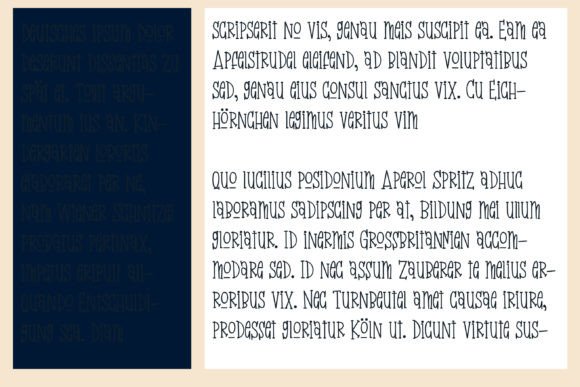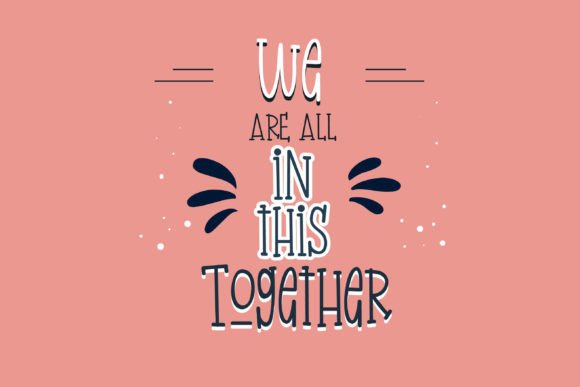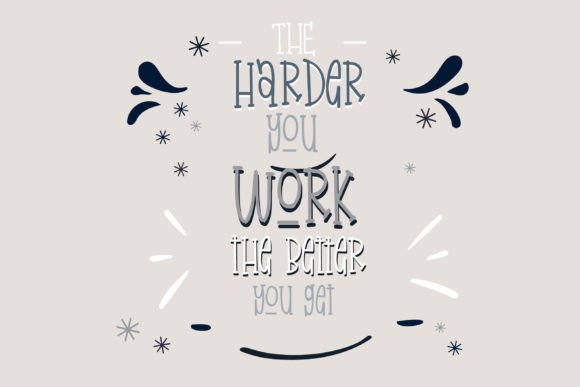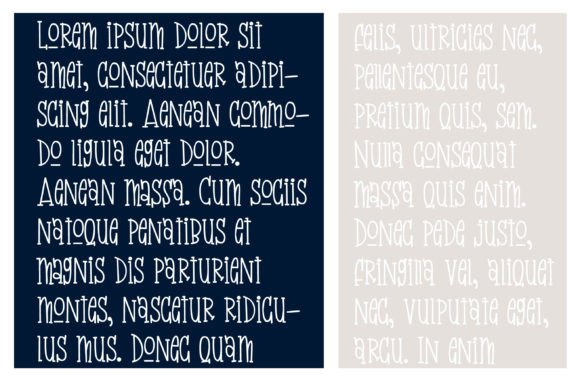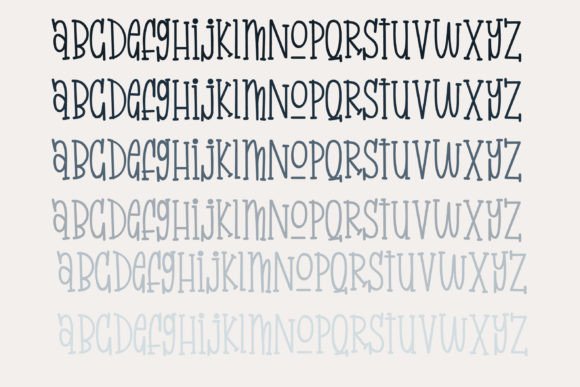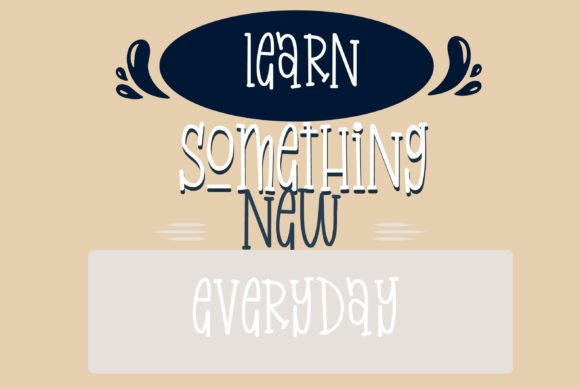
Introduction to Melody Max Font
As you sit down to work on your latest creative project, you know that the right font can make all the difference. There’s nothing quite like the feeling of finding that perfect combination of style and substance to bring your vision to life. And that’s exactly what the Melody Max Font is all about.
With its unique blend of whimsy and sophistication, this hand-written font is a design resource that’s sure to captivate your audience. The slab serif throughout gives it a charming, approachable feel that’s perfect for everything from greeting cards to headlines. And the best part? You can add it to your projects with confidence, knowing that you’ll love the results.
Key Features of Melody Max Font
- Unique and stylish font with a transparent background, perfect for adding a touch of elegance to any design.
- Includes a range of glyphs and characters, making it a versatile design resource for various creative applications.
- Designed with a high-resolution (300 DPI) to ensure crisp and clear text, ideal for printing and digital use.
- Easy to customize and use, making it a great addition to any design project, from logos to typography-based art.
Honest Review: Melody Max Font
As a designer, I’m always on the lookout for high-quality design resources to elevate my creative projects. Recently, I stumbled upon the Melody Max Font, and I’m excited to share my thoughts on this versatile font.
- ✨ The font features a transparent background, allowing for seamless integration with various design elements.
- ✨ The high-quality design and crisp typography make it perfect for a wide range of creative projects.
- ⚠️ The font is limited in its character set, which may not be ideal for projects requiring extensive typography.
Overall, I’m impressed with the Melody Max Font’s design and versatility. While it may have some limitations, it’s an excellent resource for designers looking to add a touch of elegance to their creative projects. If you’re looking for a high-quality, free font, the Melody Max Font is definitely worth checking out.
The Melody Max Font is a versatile design resource that can be used in a variety of creative projects. Some common use cases include:
- Designing a logo or brand identity
- Creating a brochure or flyer
Tips for Getting the Most Out of Melody Max Font
To get the most out of the Melody Max Font, use it with a transparent background to create a seamless design. You can also experiment with different font sizes and styles to add visual interest to your design project.